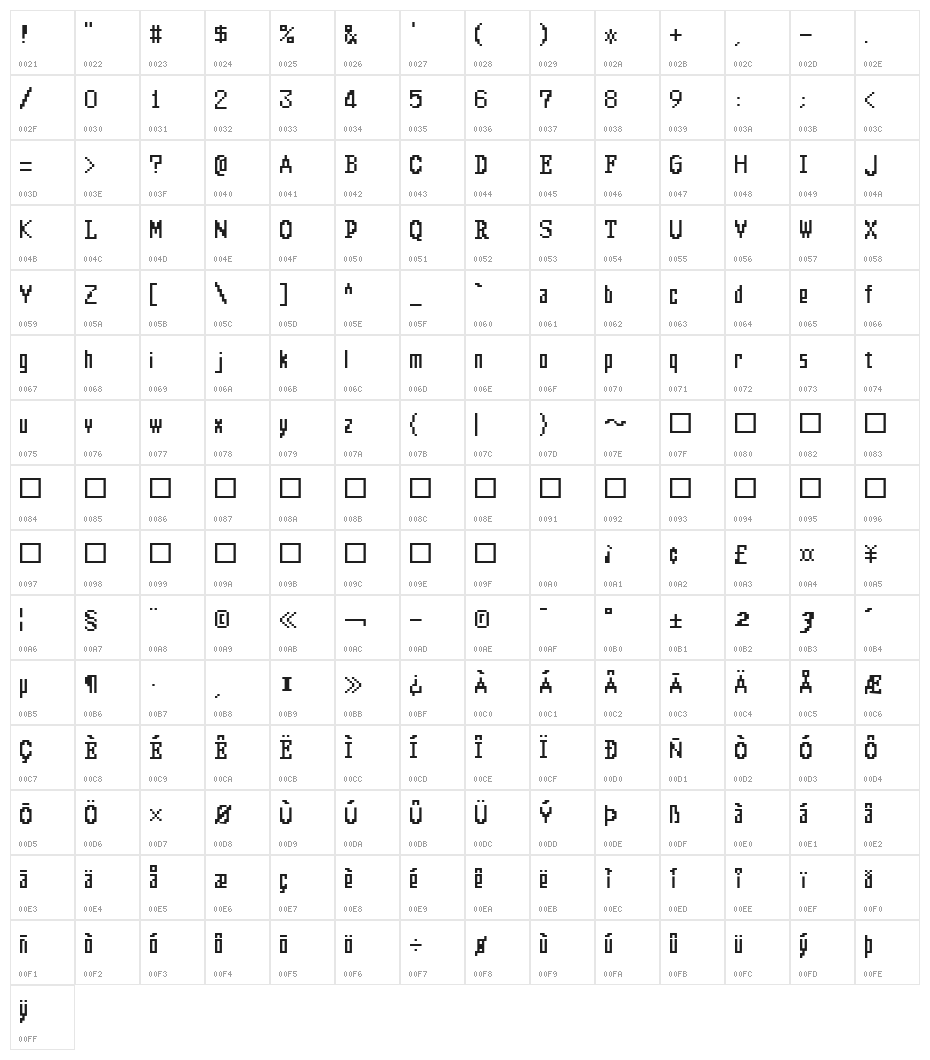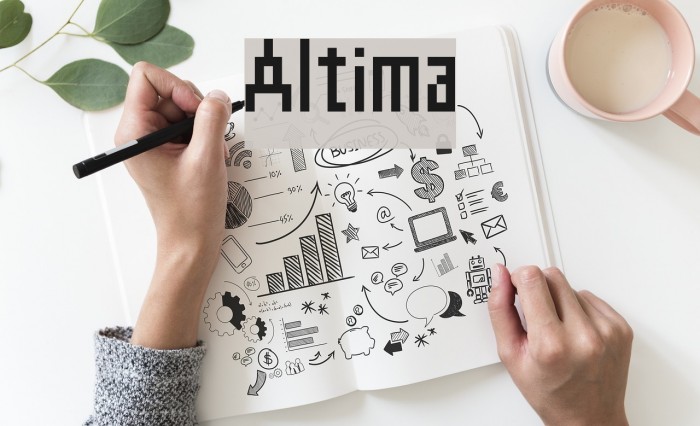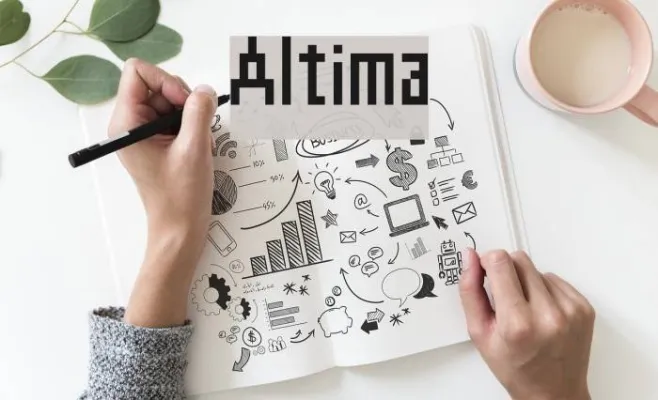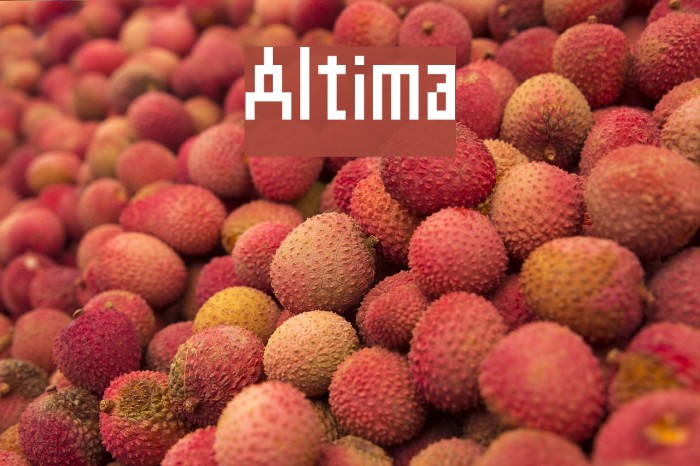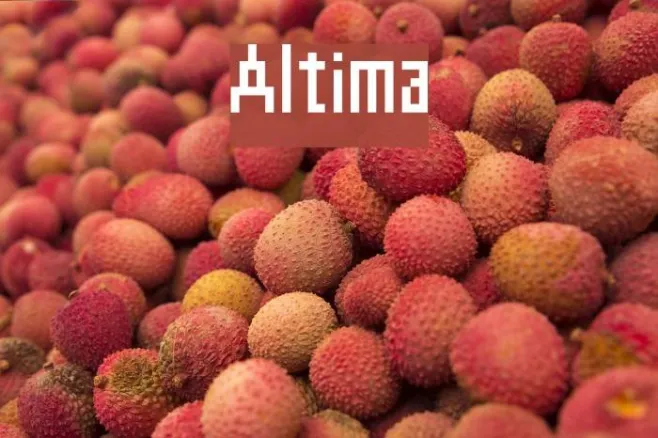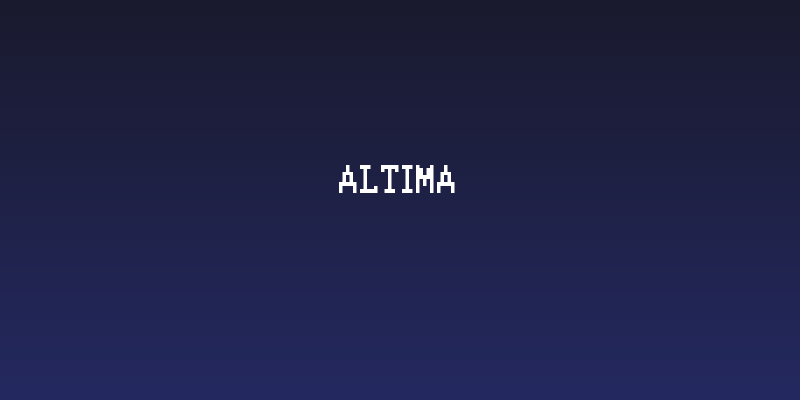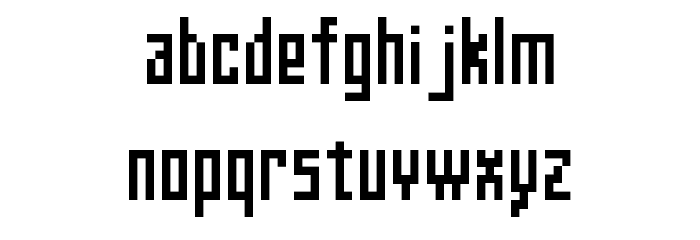
Altima Font
Altima Description
This font features a pixelated, blocky design reminiscent of early digital displays and video game graphics. Each character is constructed with a grid-like precision, giving it a distinctly retro and technological feel. The uppercase and lowercase letters maintain a consistent height and width, contributing to a uniform appearance. Numbers and special characters follow the same stylistic approach, ensuring coherence across all text elements. The font's simplicity and geometric nature make it highly legible, even at smaller sizes. Its nostalgic aesthetic is ideal for projects seeking to evoke a sense of vintage computing or digital nostalgia.
| Use Case | Logos, Headlines, Digital Art |
| Proposed Projects | Ideal for video game design, retro-themed posters, digital art, and tech-related branding. |